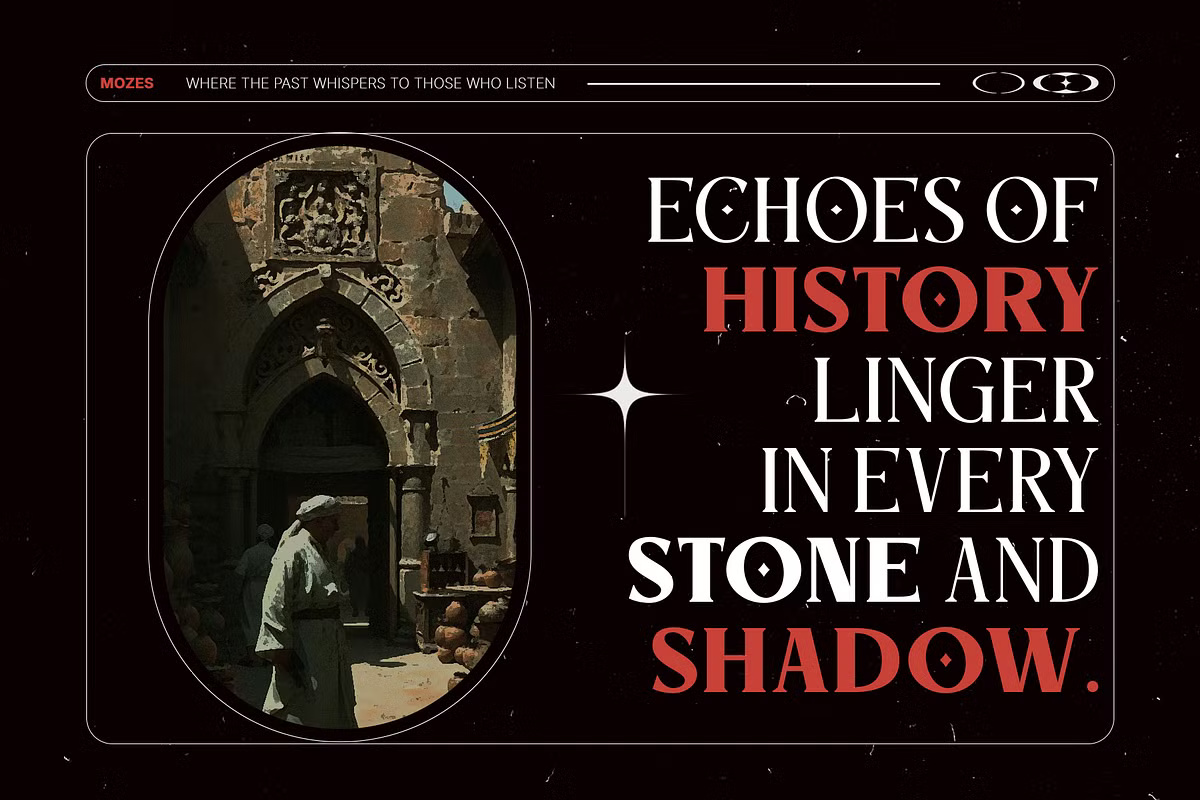
Mozes is a dynamic and expressive variable serif typeface, designed for the aesthetics of 2025. It merges beauty and strength, embodying the bold yet refined characteristics of modern typography. Versatile across different architectural and design styles, Mozes conveys both history and courage through its structure.
Featuring ligatures and alternate characters, Mozes adapts effortlessly to various design needs. While inherently precise and elegant, it also makes a bold and unambiguous statement. Its adjustable weight and width allow for optimal customization without the hassle of switching between multiple font files, enhancing workflow efficiency.
Mozes Serif Font